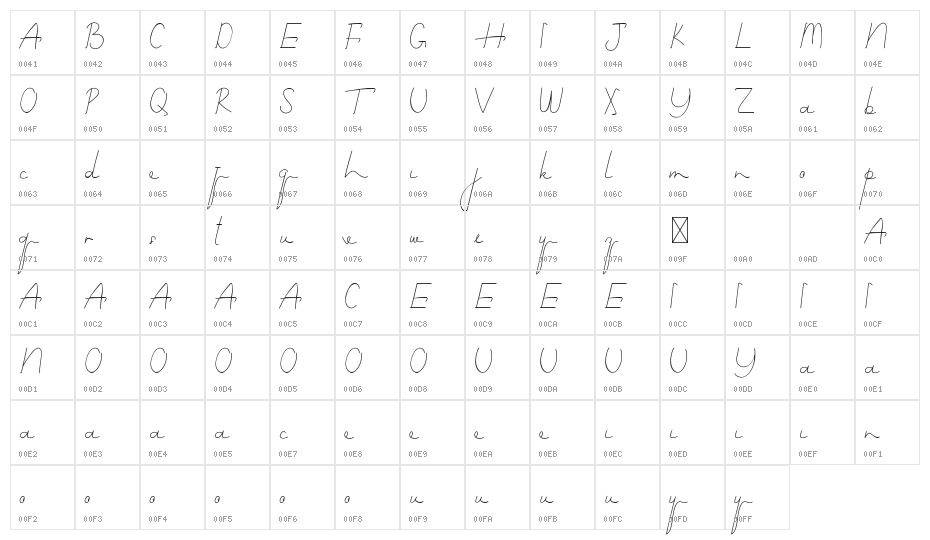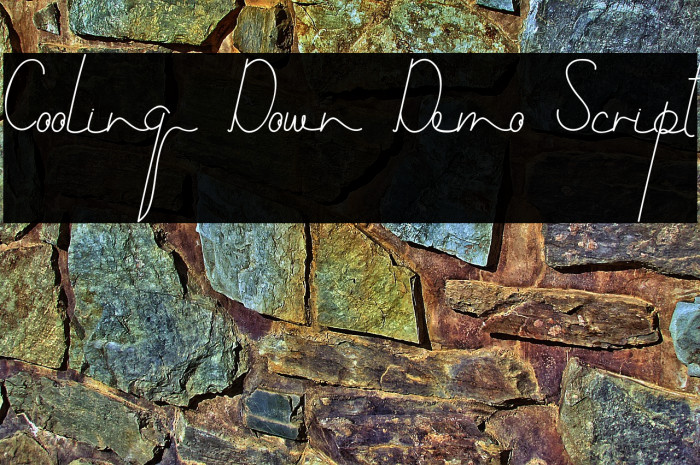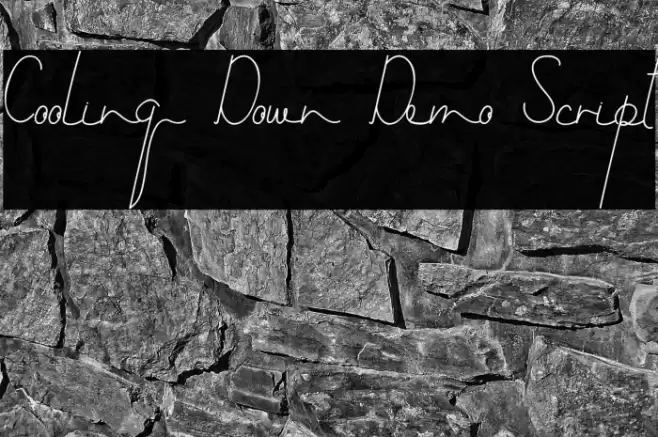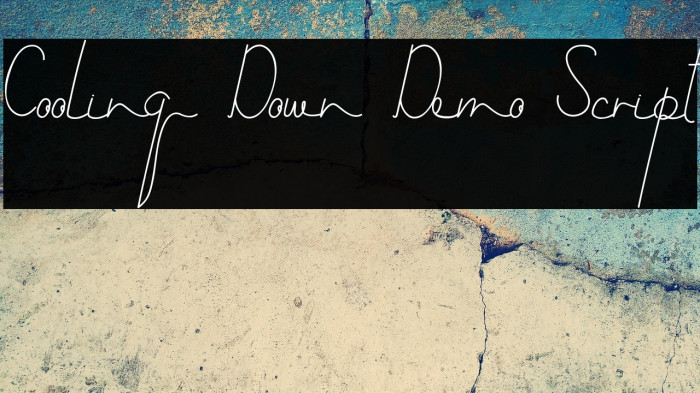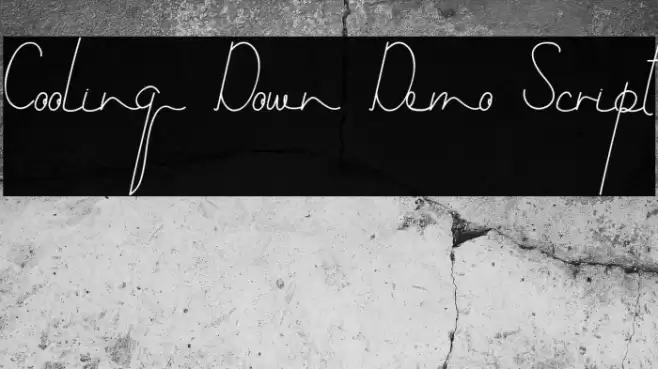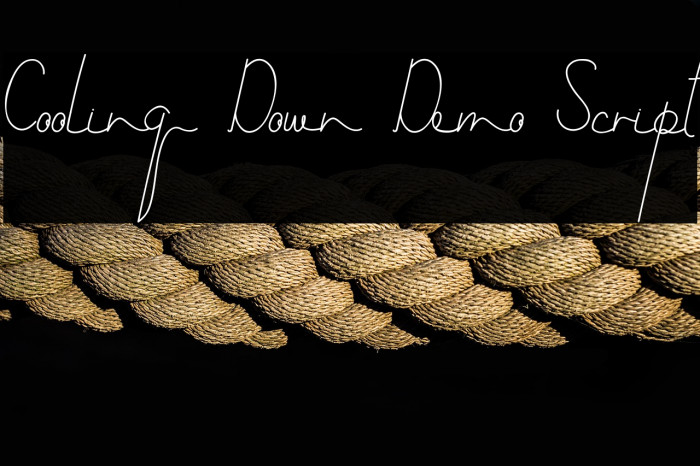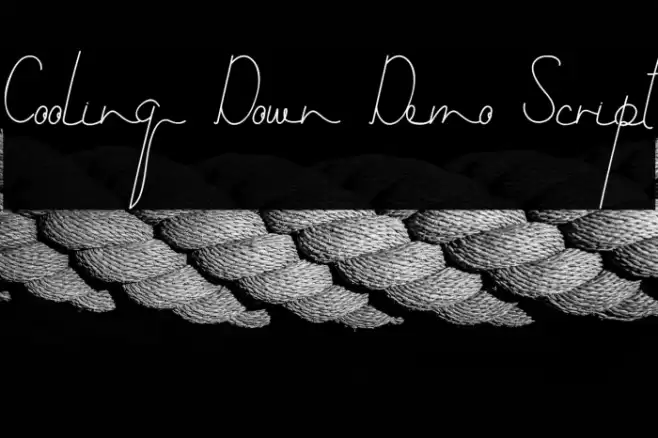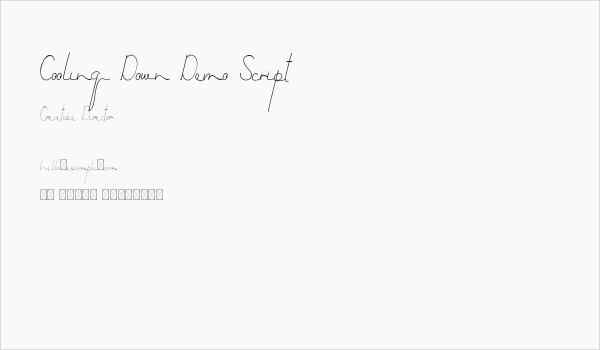
Cooling Down Demo Script Font
Cooling Down Demo Script Description
This font features a unique, flowing script style that mimics the fluidity of handwriting. The characters are connected, creating a continuous line that adds a personal and artistic touch. The uppercase letters are tall and elegant, while the lowercase letters maintain a consistent flow, enhancing readability. The font's thin strokes and delicate curves give it a light and airy feel, making it suitable for creative and expressive projects. The overall design is both modern and timeless, offering versatility in various design contexts.
| Use Case | Logos, Invitations, Artistic Projects |
| Proposed Projects | Ideal for wedding invitations, personal branding, artistic posters, and creative logos. |